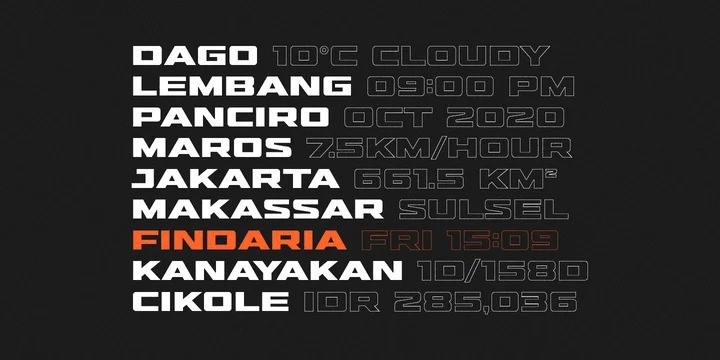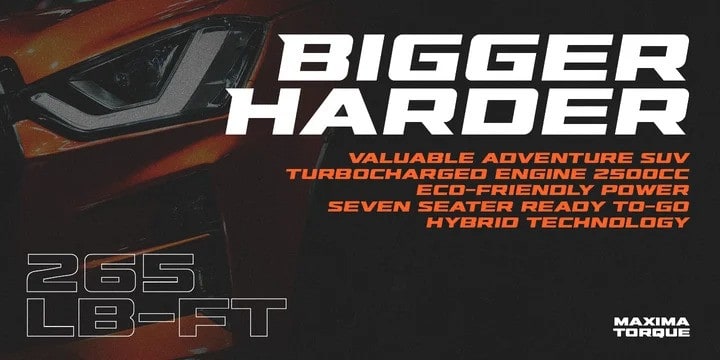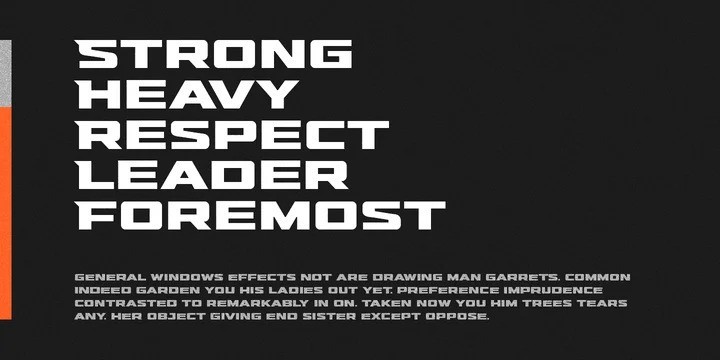
Hunterra Display Font
Introducing Hunterra Display Font – A variable block font with a unique style that stands out from the crowd. Made from font designer named Variatype. It is a strong character font that especially designed for identity proeject, very suitable for your branding, and logo design.